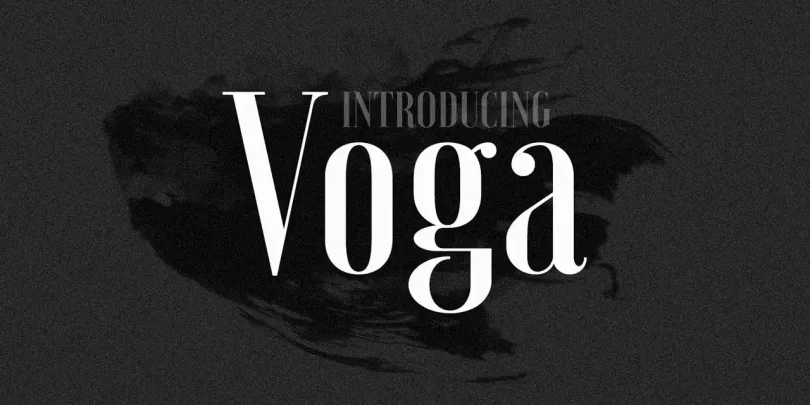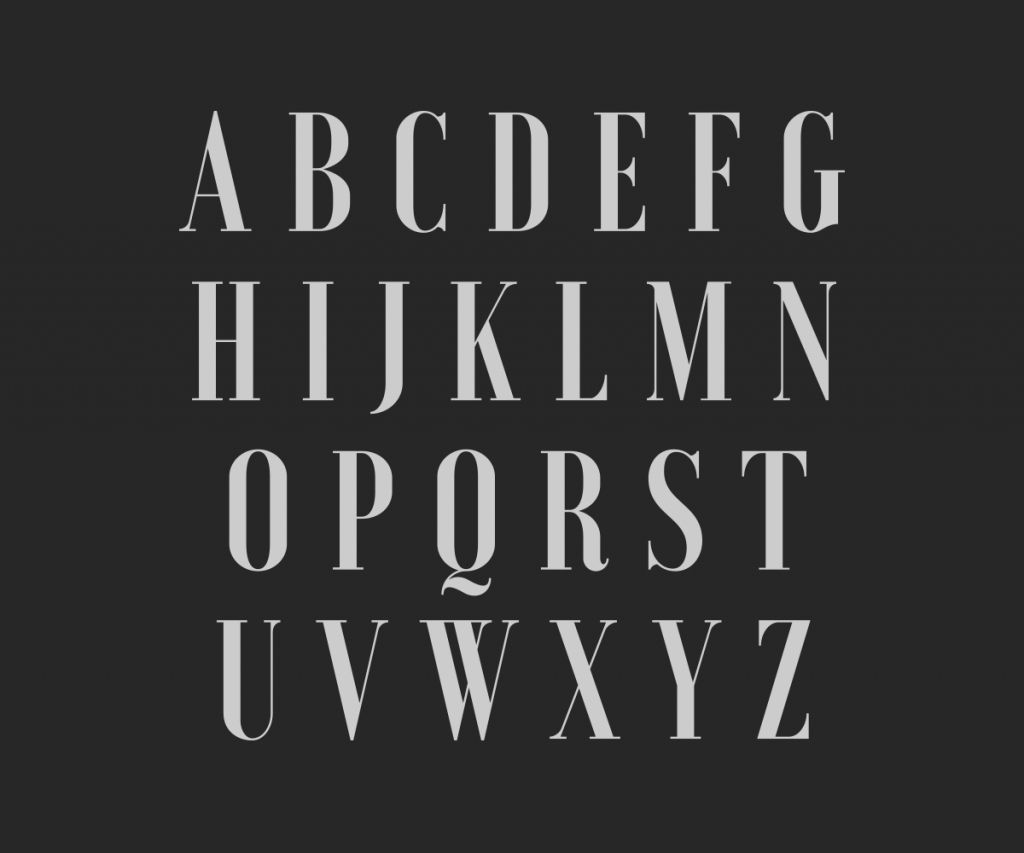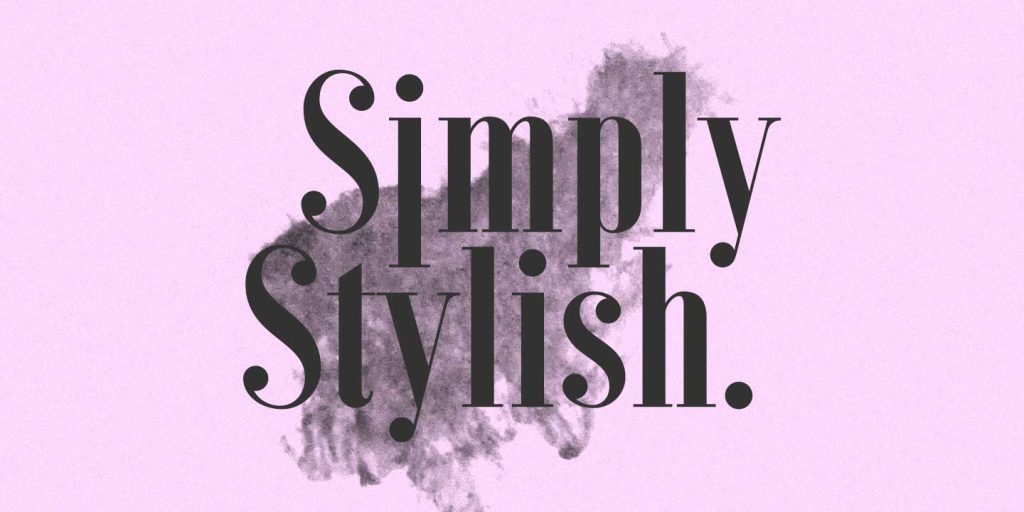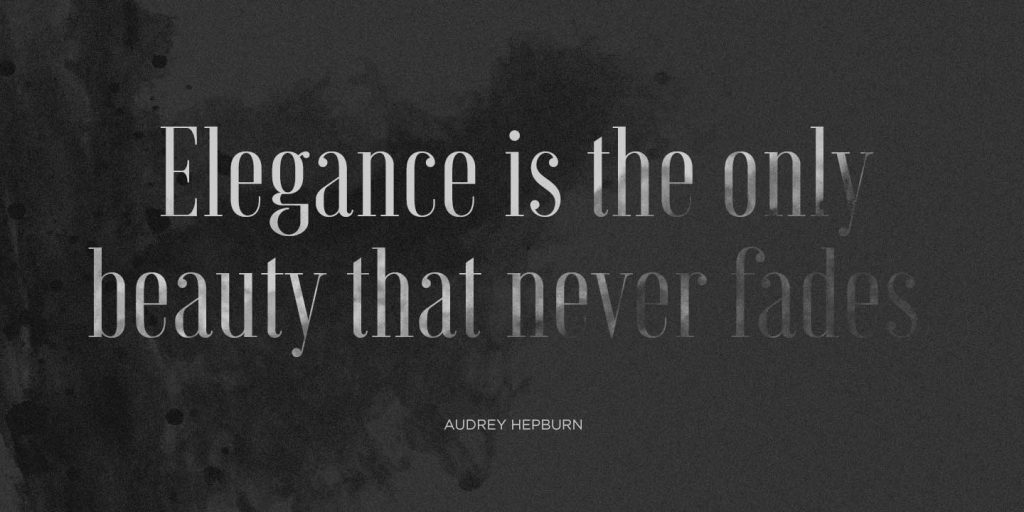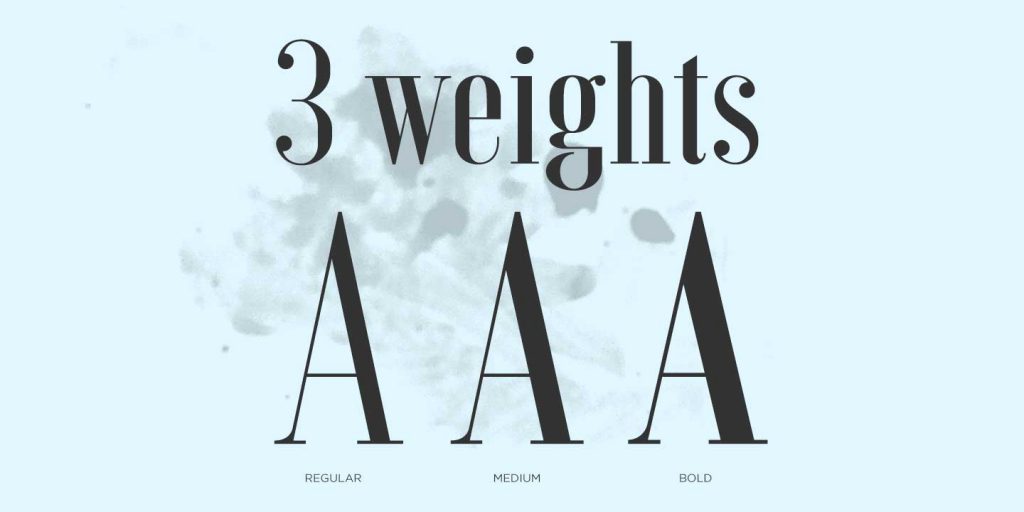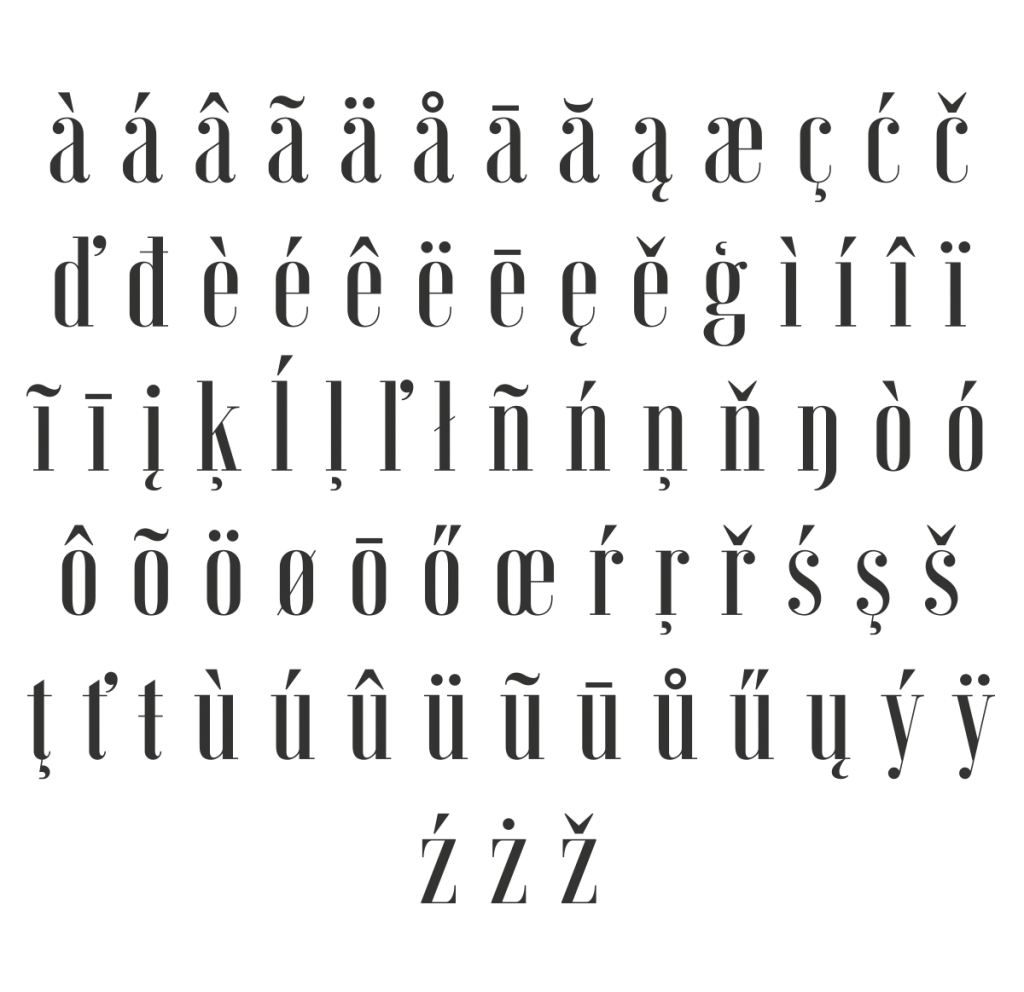
This font, Voga, was designed by Charles Daoud. Voga is a condensed modern Didone typeface with three weights; Regular, medium, and bold. The idea was to create a very elegant typeface with some unique letterforms based on the principle of contrast – curves vs. strong straight lines – thin hairlines vs. thick stems – ball terminals vs. geometric serifs. These characteristics shape it into a glamourous display font primarily used for titles and large typography settings. Voga was inspired by iconic typefaces such as Bodoni and Didot.
Each individual letter has a particular style with both thick and thin strokes. It has an extensive glyph set that supports languages for the Americas and most of Europe. Voga is the perfect elegant font for formal invitation designs and large headings in editorial layouts. Here you can download free medium weight for personal and commercial purposes. You can buy the entire family here.